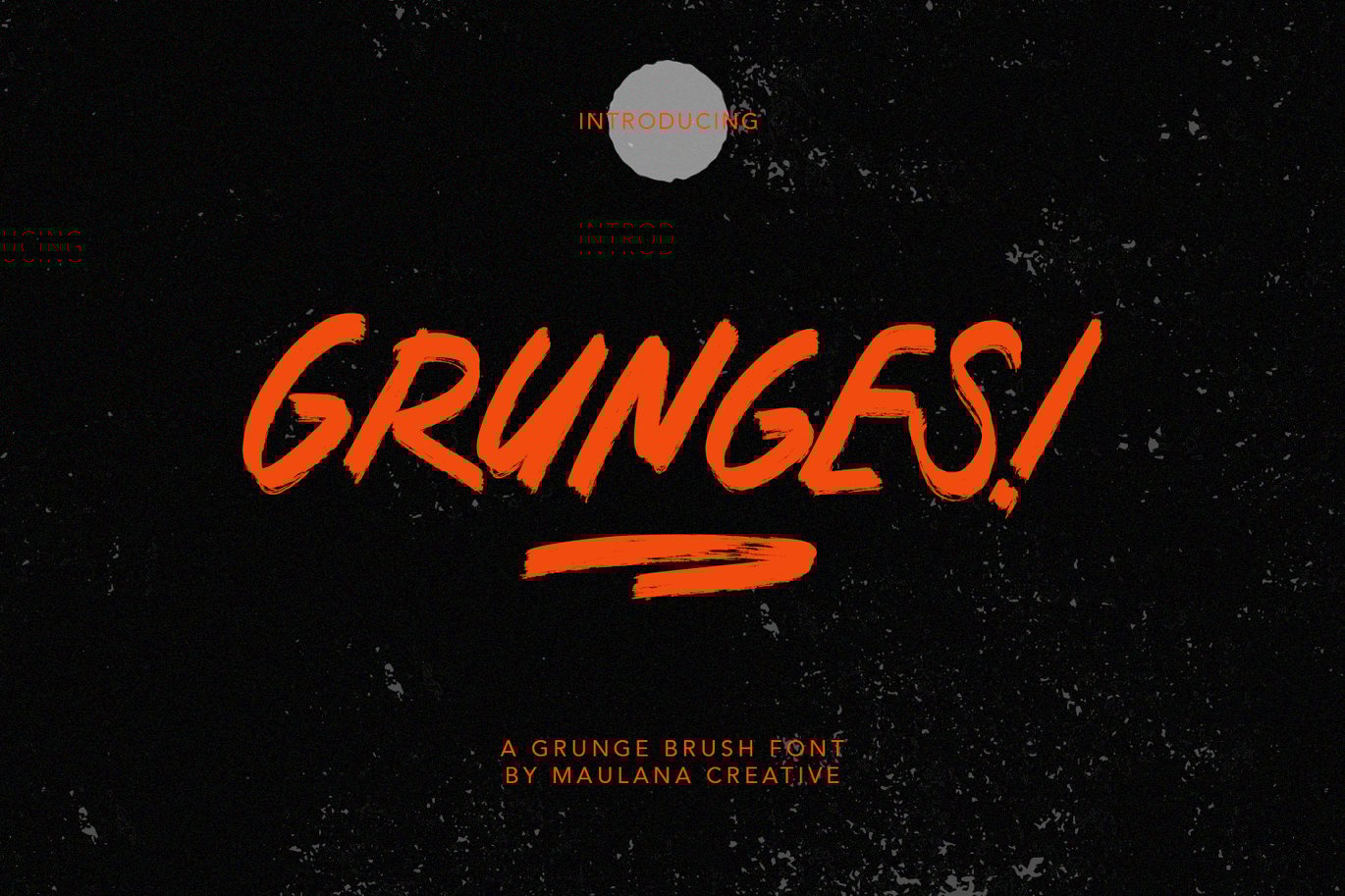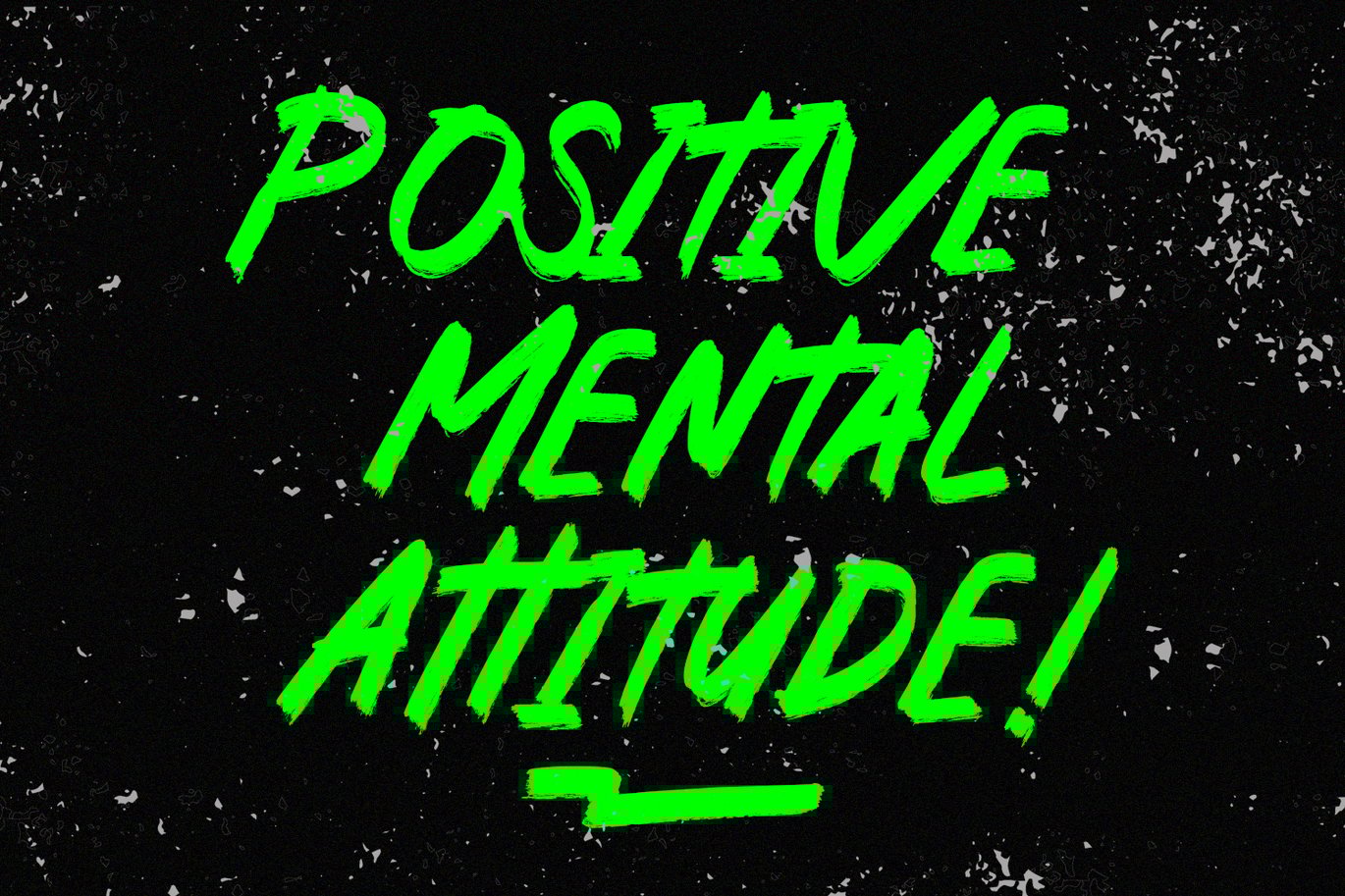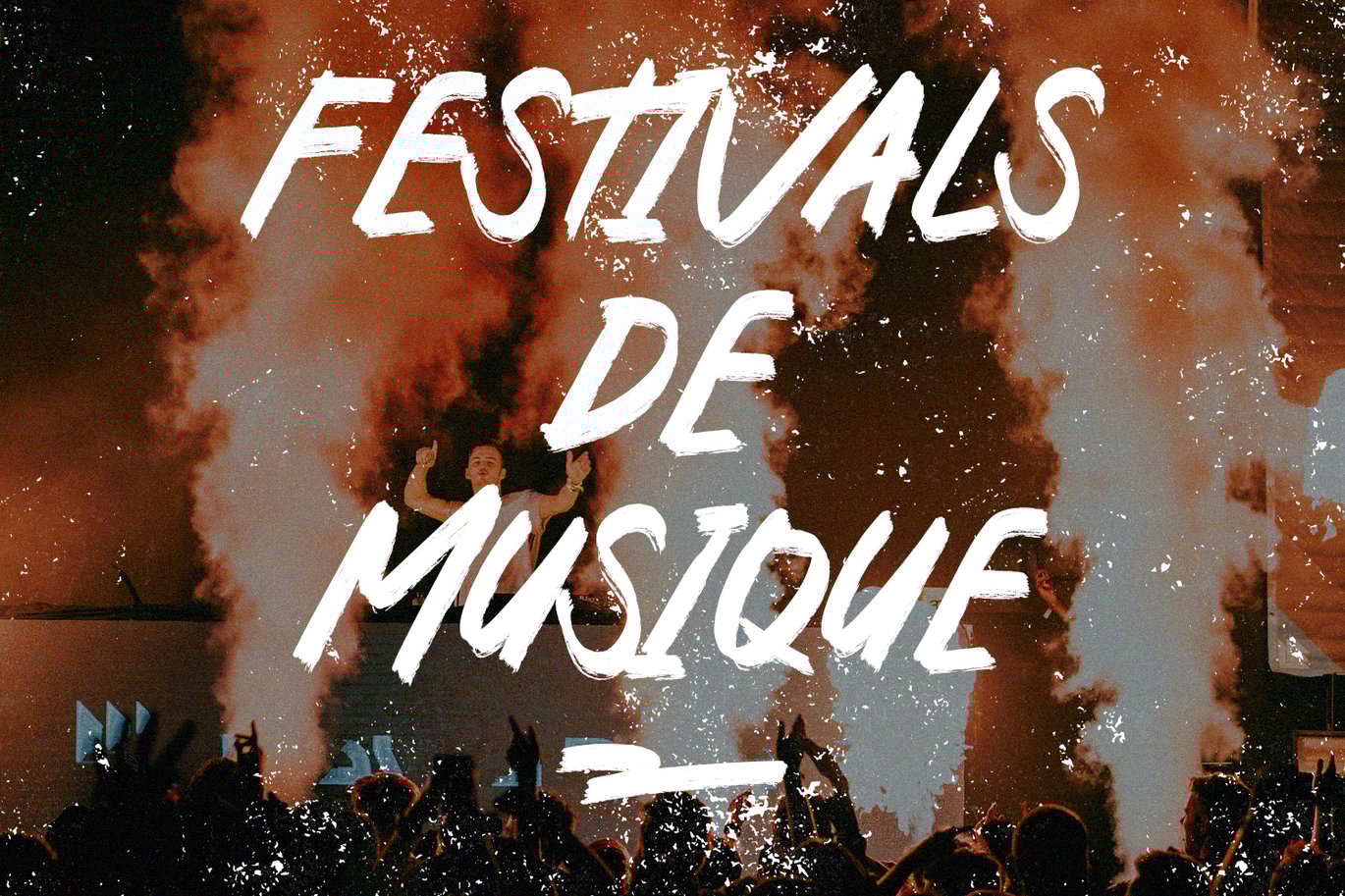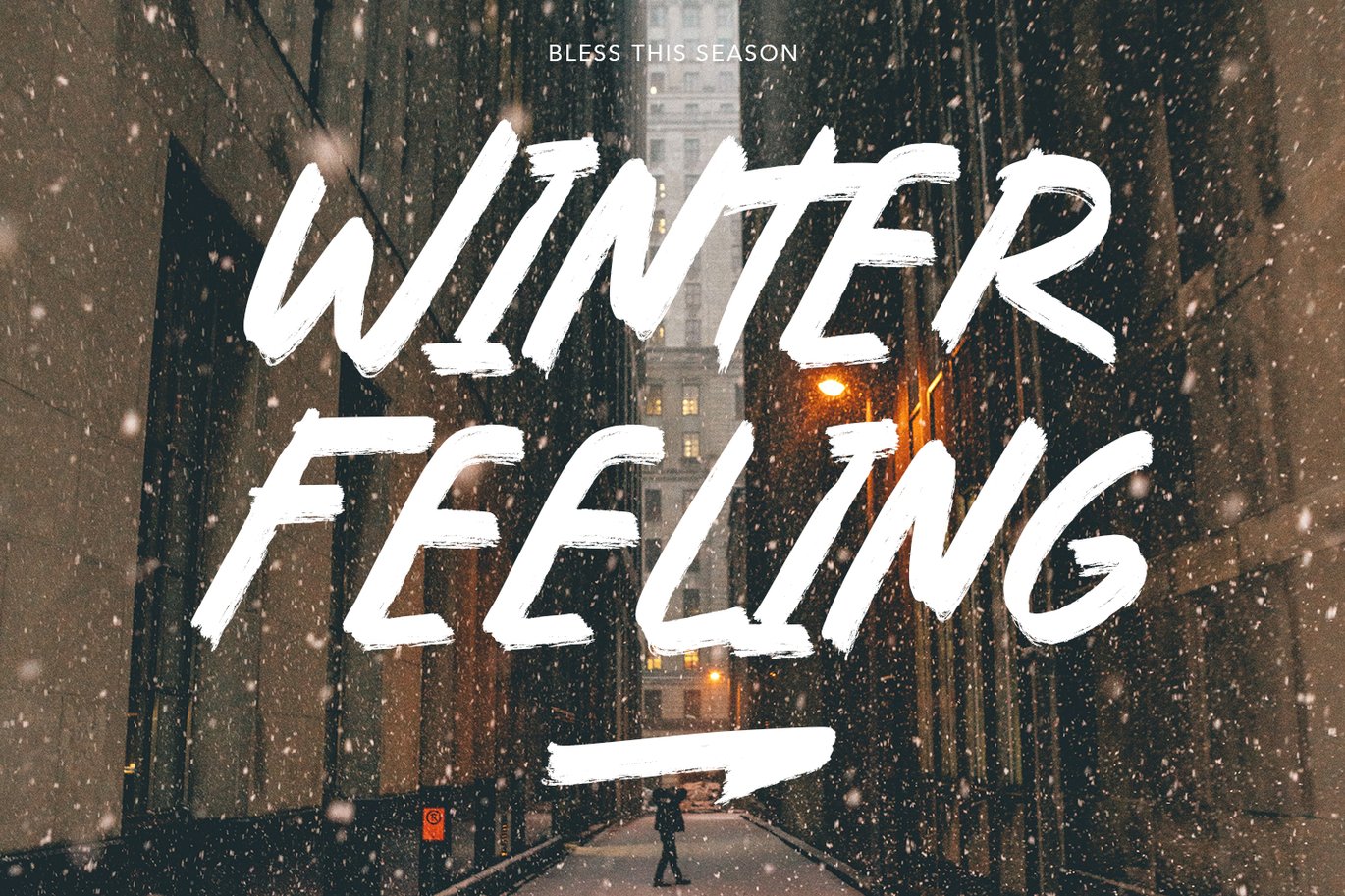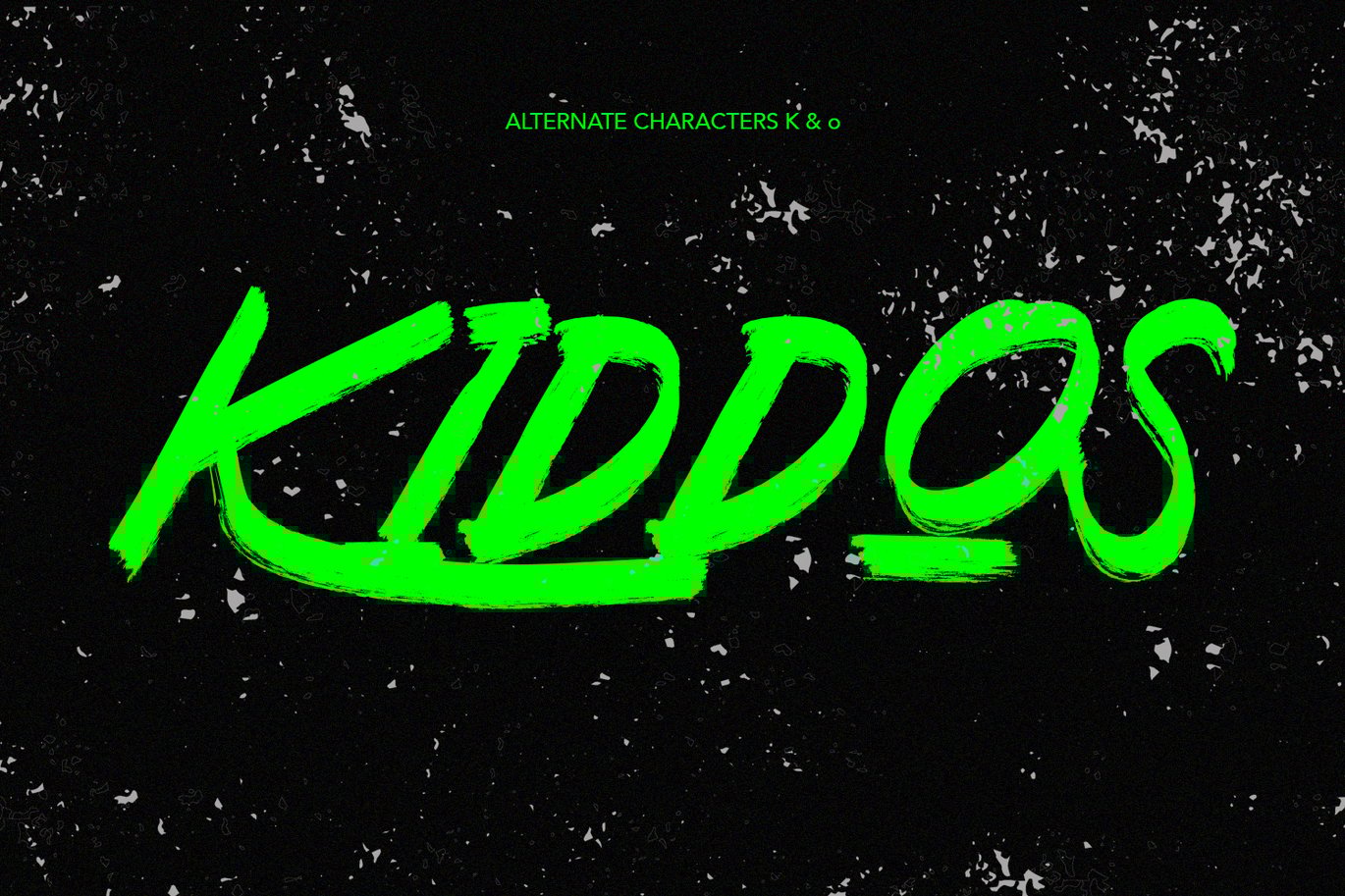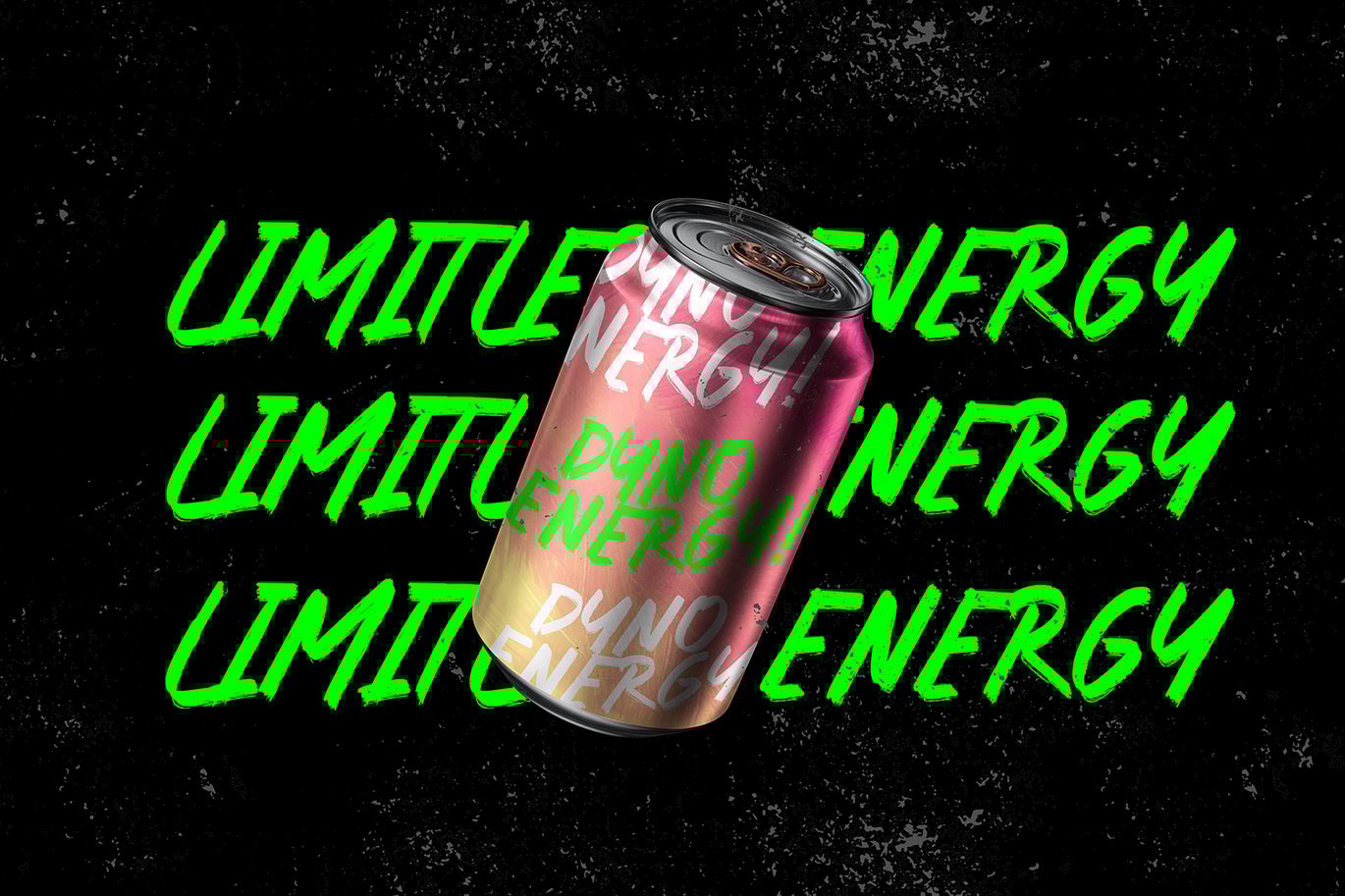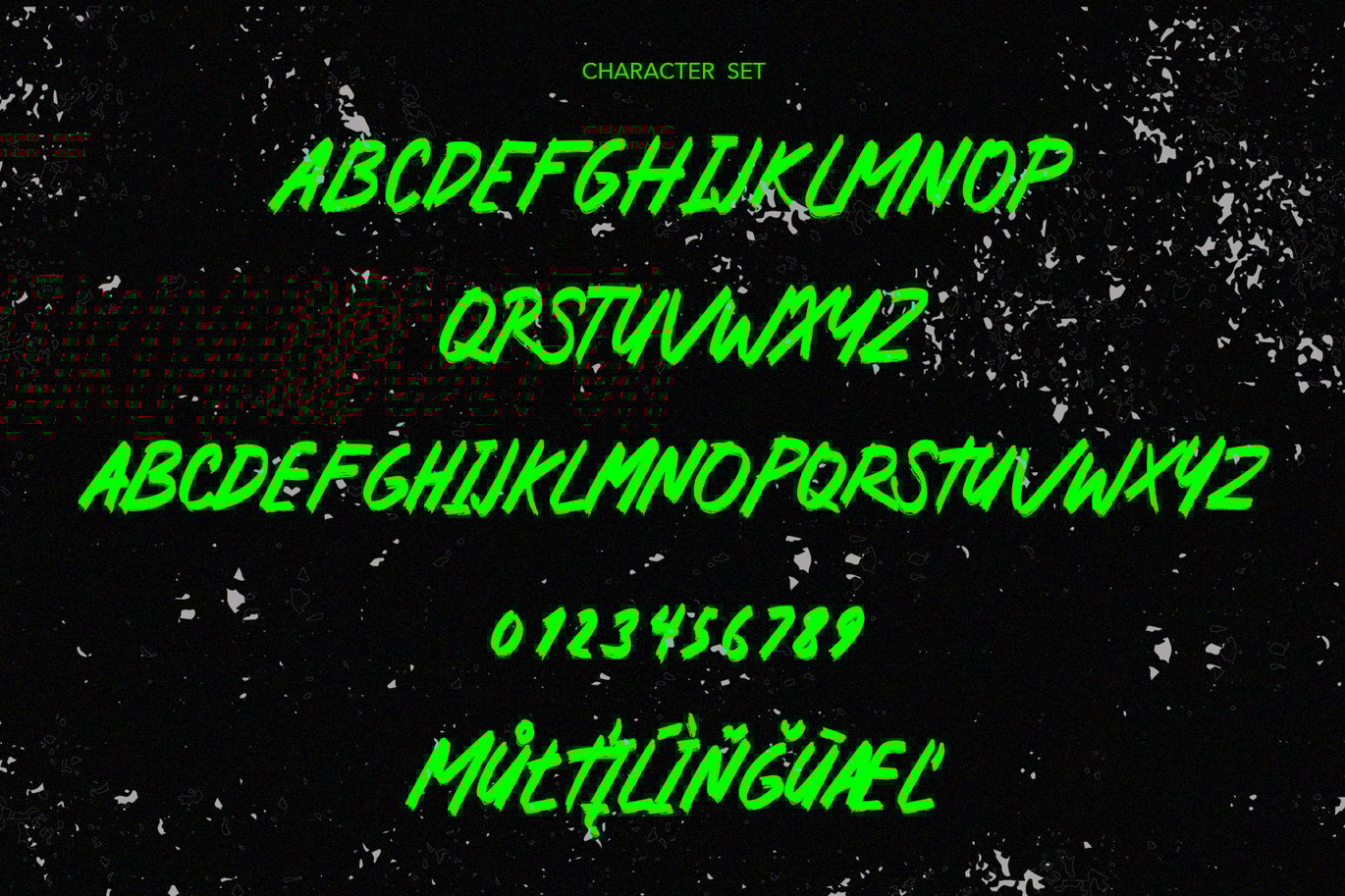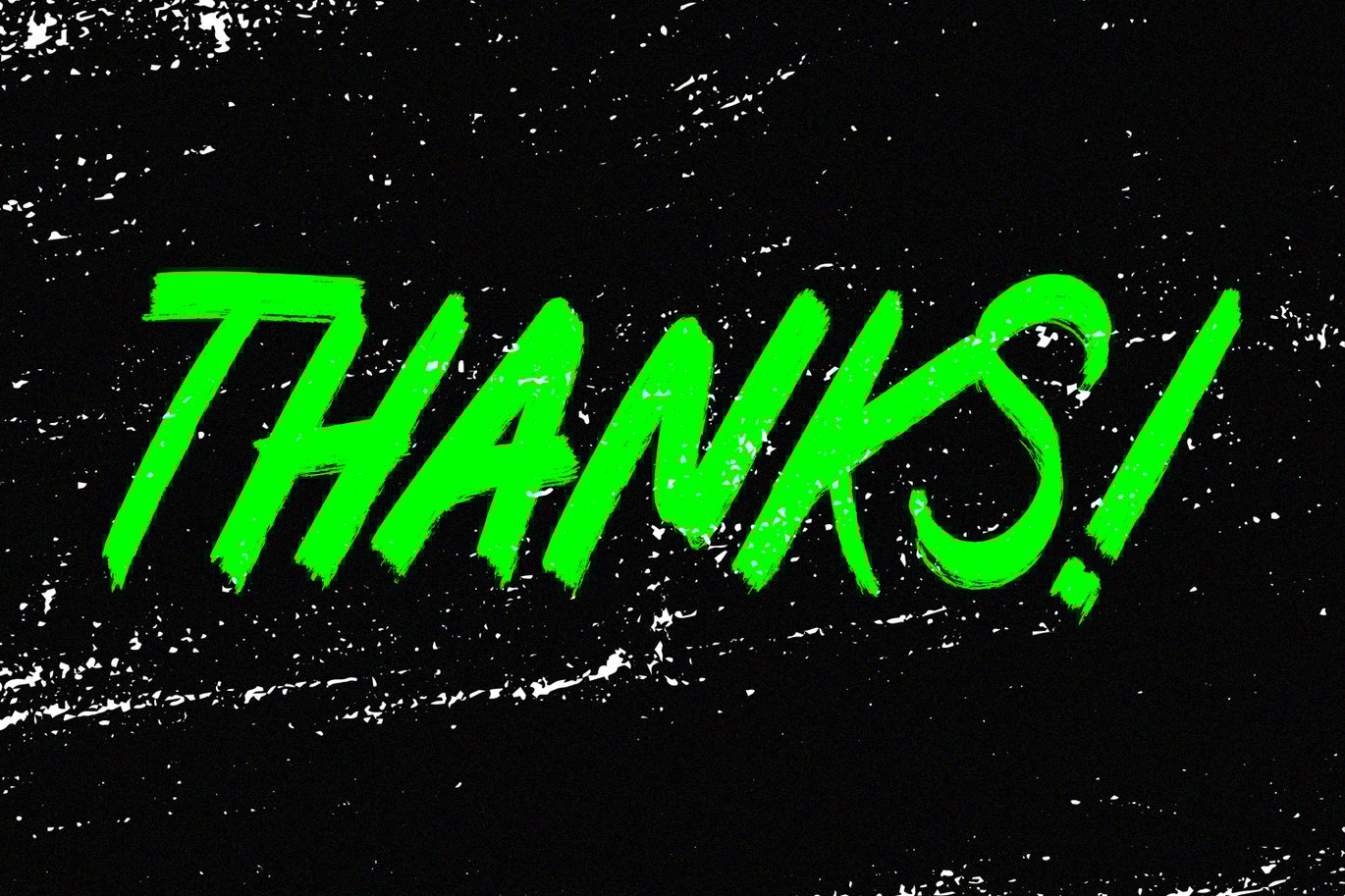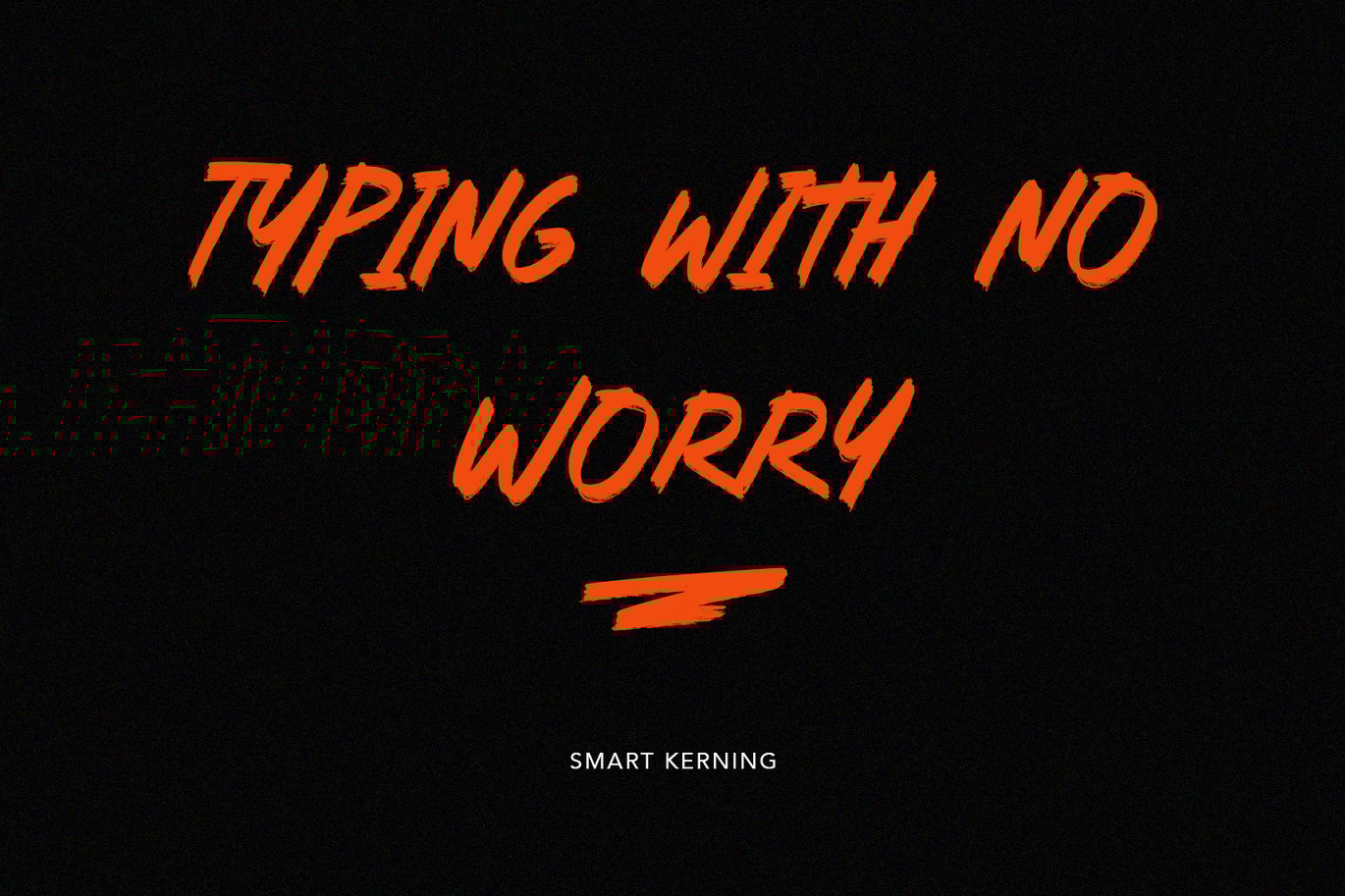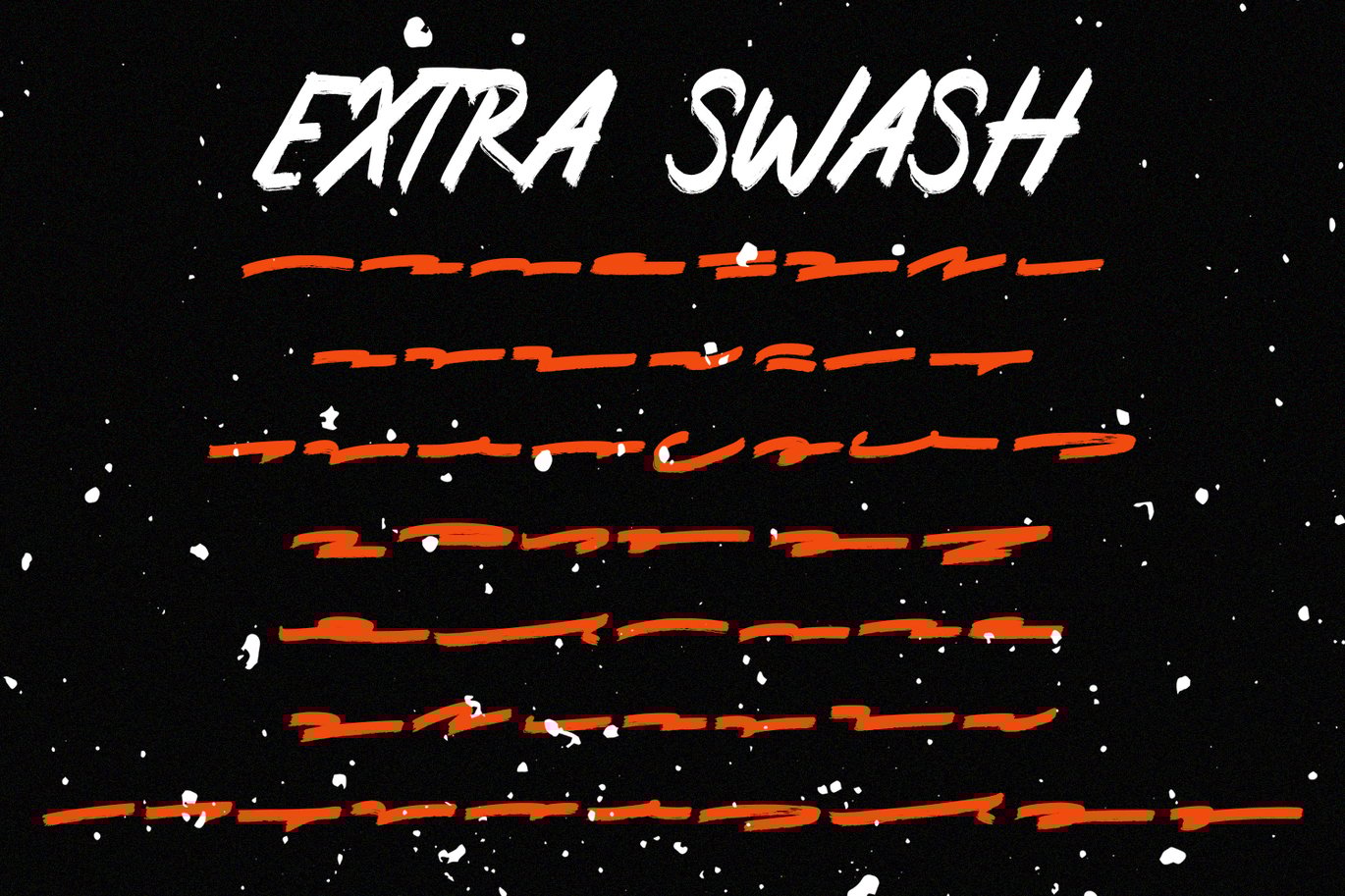
Grunges Grunge Brush Font
Give your designs an authentic brush handcrafted feel. “Grunges Brush Font” is perfectly suited to signature, stationery, logo, typography quotes, magazine or book cover, website header, flyer, clothing, branding, packaging design and more.